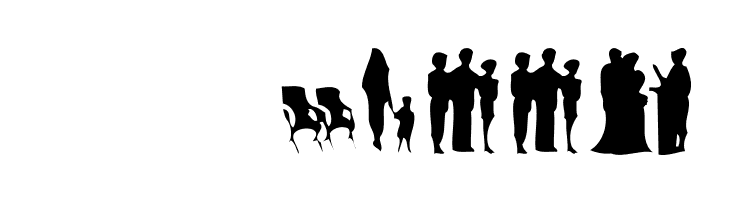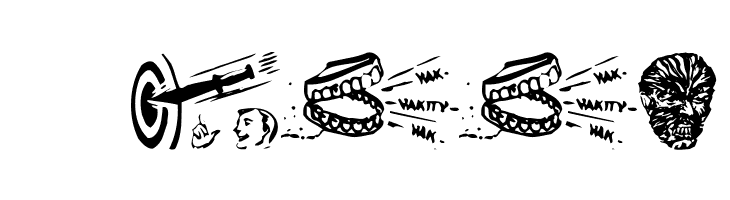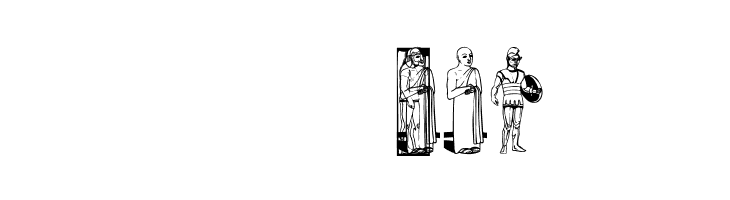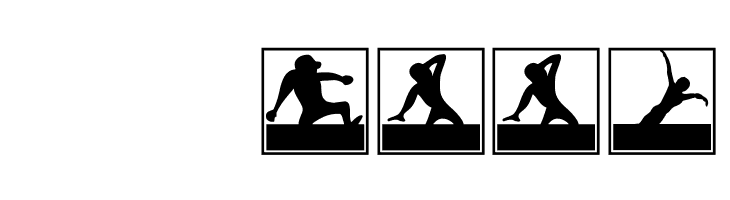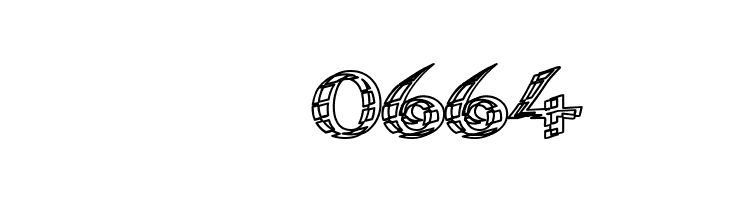
• DesignElementsTwo
A decorative dingbat collection with abstract, geometric, and illustrative icons.
• KlungerCaps
A bold, decorative font with a blackletter style enclosed in squares.
• OutdoorSports
Illustrative dingbat font depicting outdoor sports.
• MKsketches
Hand-drawn, sketch-based decorative font with abstract and figurative elements.
• VirtualWoodcuts
A woodcut-inspired illustrative display font with each glyph as a unique artwork.
• GloriaVectoria
Expressive, illustrative icon-based font with surreal and abstract motifs.
• Scissoria
A collection of intricate silhouette illustrations, not a traditional font.
• AfricainBatsOSix
An artistic, pictorial font with each character as a unique illustration.
• WildMirror
A decorative, illustrated font featuring vintage comic-style portraits and scenes.
• TestroomTwo
Highly decorative font using illustrated faces and objects as glyphs.
• Animalia
Intricate animal-themed decorative glyphs with a woodcut style.
• BackPage
Comic-inspired dingbat font with retro illustrations for each character.
• SomeSilhouBatsOne
A whimsical collection of bold silhouette designs in square frames.
• Nipponia
Illustrative font using Japanese cultural scenes for each character.
• Sculpturs
A pictorial display font featuring iconic sculptures as glyphs.
• FemalesNMales
Illustrative display font using human figures as glyphs.
• CelticOrnamBats
A decorative font featuring intricate Celtic-inspired designs and motifs.
• TextEmptyStickers
Silhouette pictogram icons with a bold, graphic style.
• AmericaBeforeColumbus
A pictorial, decorative font based on pre-Columbian American art.
• FabCreaturesInverted
Playful, illustrated alien and creature icons in circular frames.
• RememberWinter